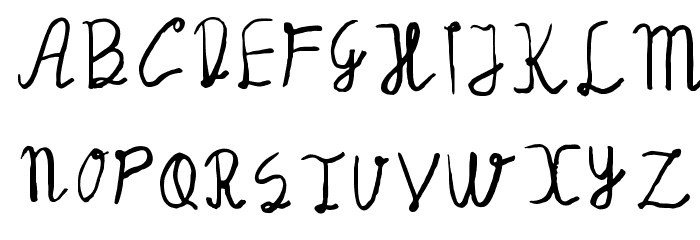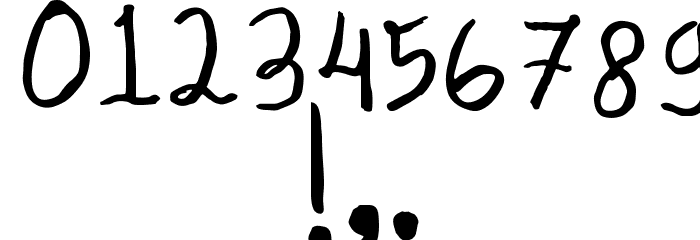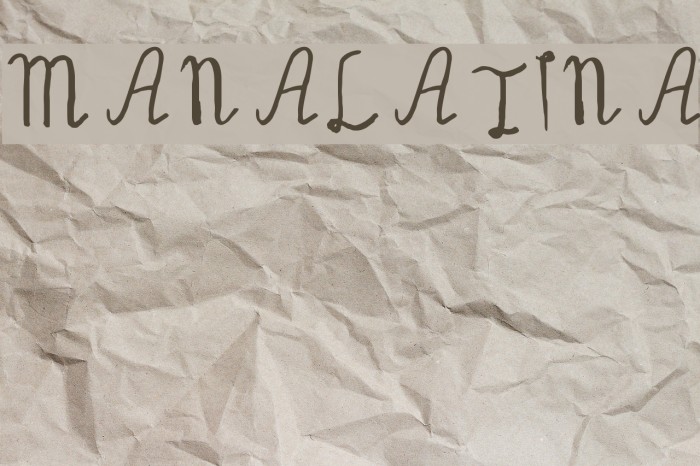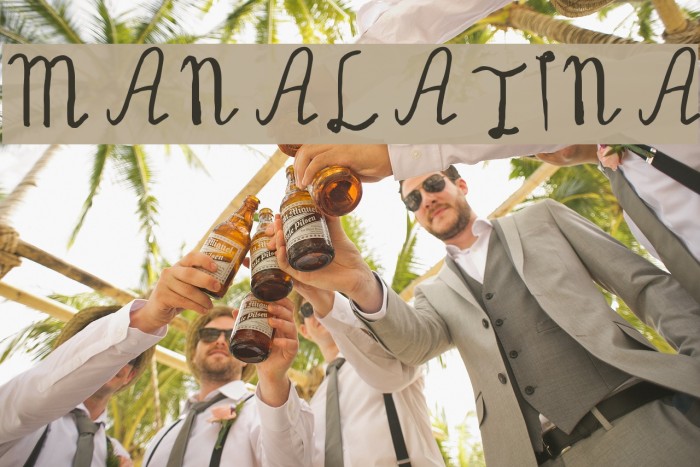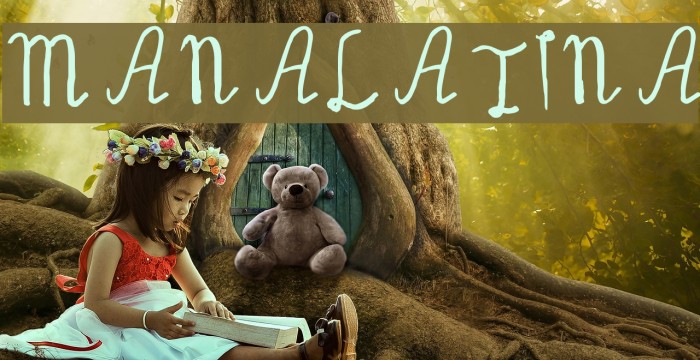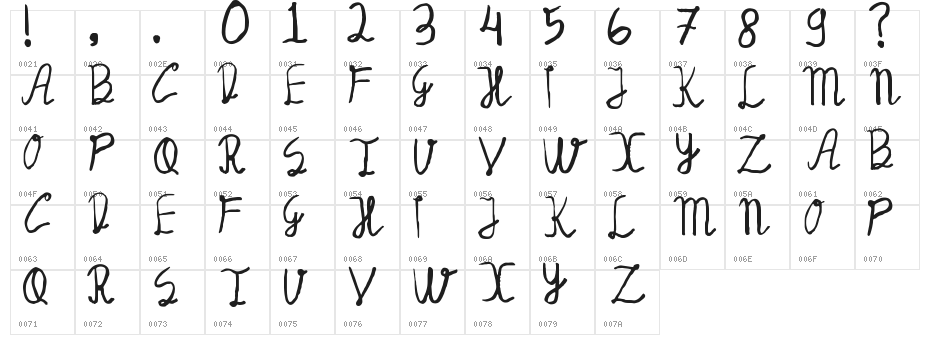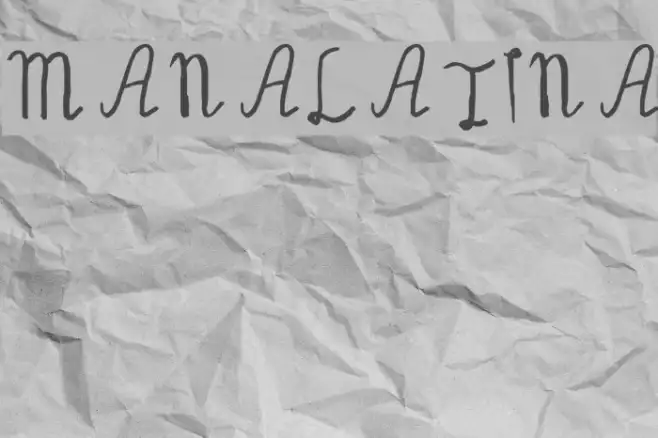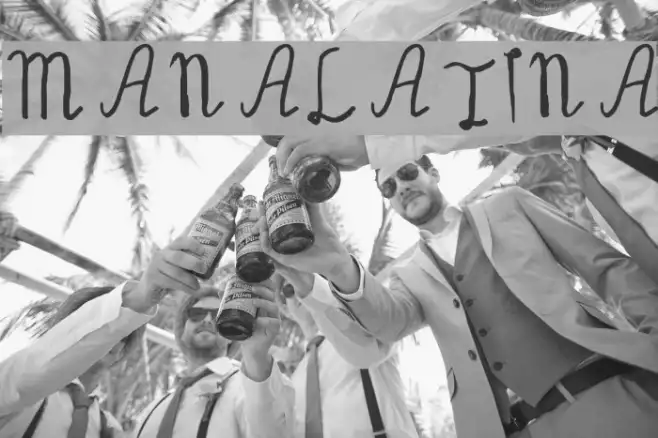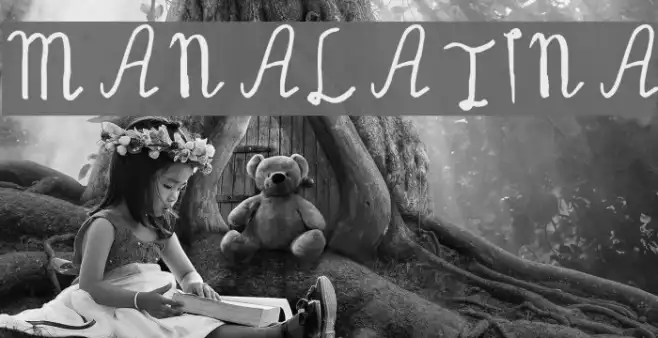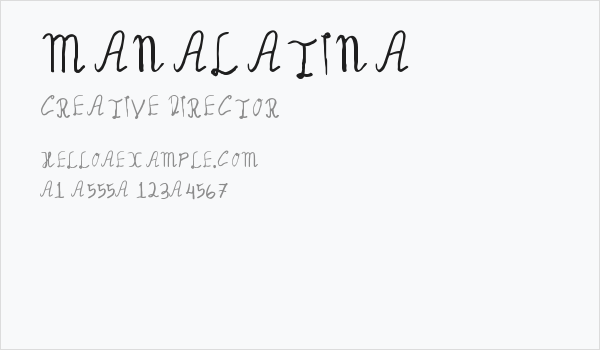
Manalatina Font
This font features a dynamic and expressive style, characterized by its handwritten appearance with a slight slant. The strokes are varied, with some letters exhibiting bold, sweeping curves while others maintain a more restrained, narrow form. The uppercase letters are particularly distinctive, with unique flourishes and loops that add a sense of movement and flair. The lowercase letters complement the uppercase with their own set of elegant curves and connections, creating a cohesive and artistic look. The numbers and special characters maintain the same stylistic elements, ensuring consistency across all glyphs. This font's overall aesthetic is both playful and sophisticated, making it suitable for a variety of creative applications.
A dynamic, handwritten-style font with expressive curves and unique flourishes.
- Proposed Projects: Ideal for creative projects such as invitations, greeting cards, branding, and artistic posters.
- Use Case: Logos, Headlines, Artistic projects